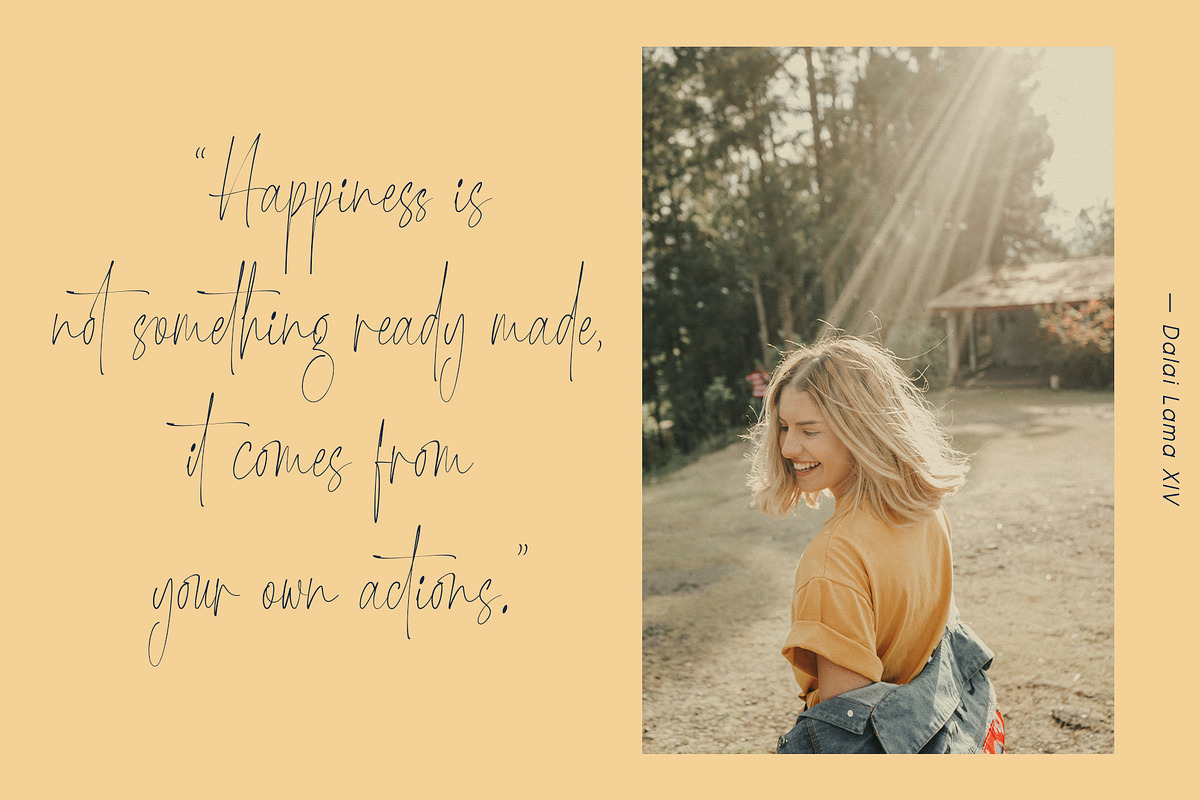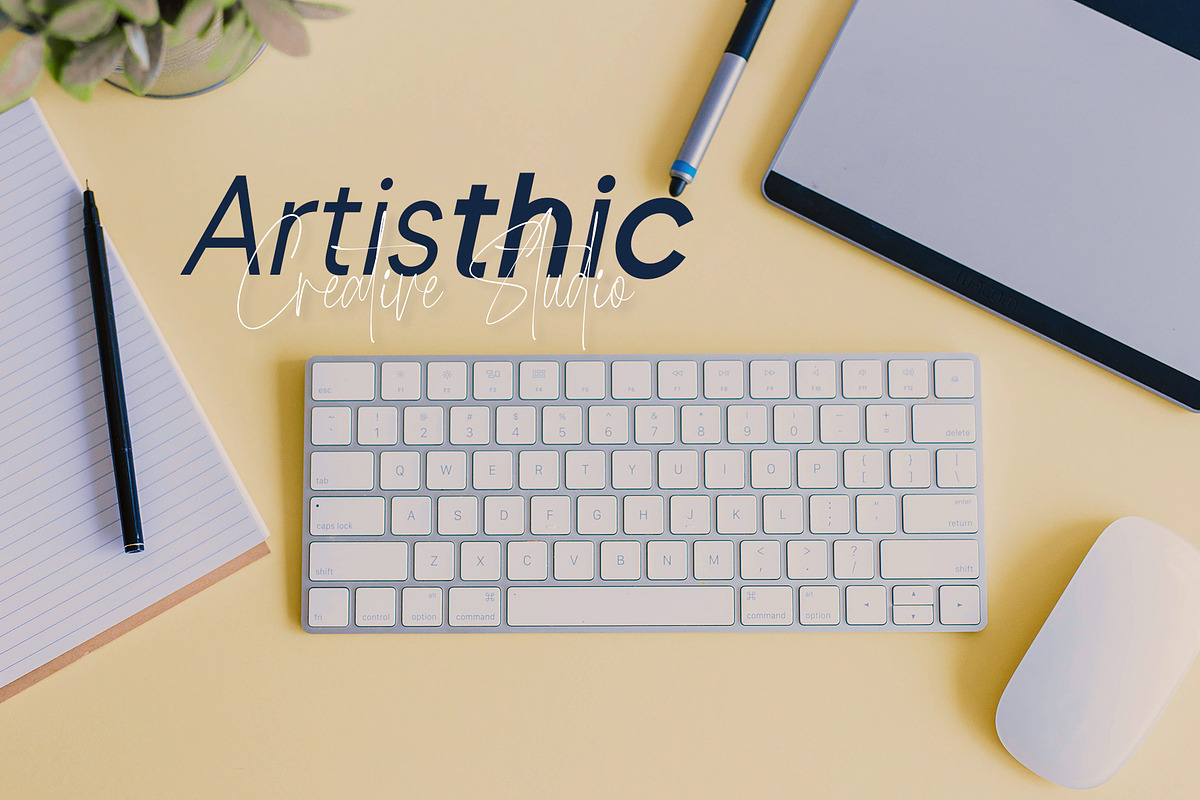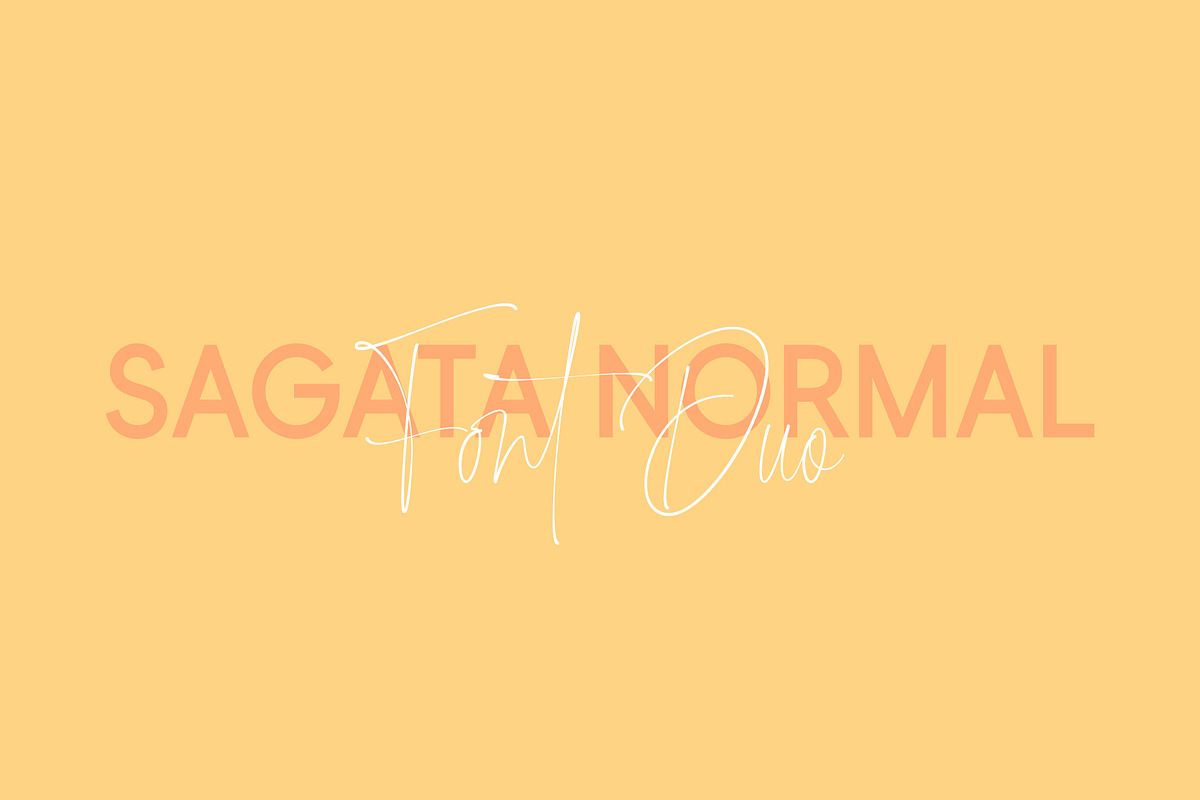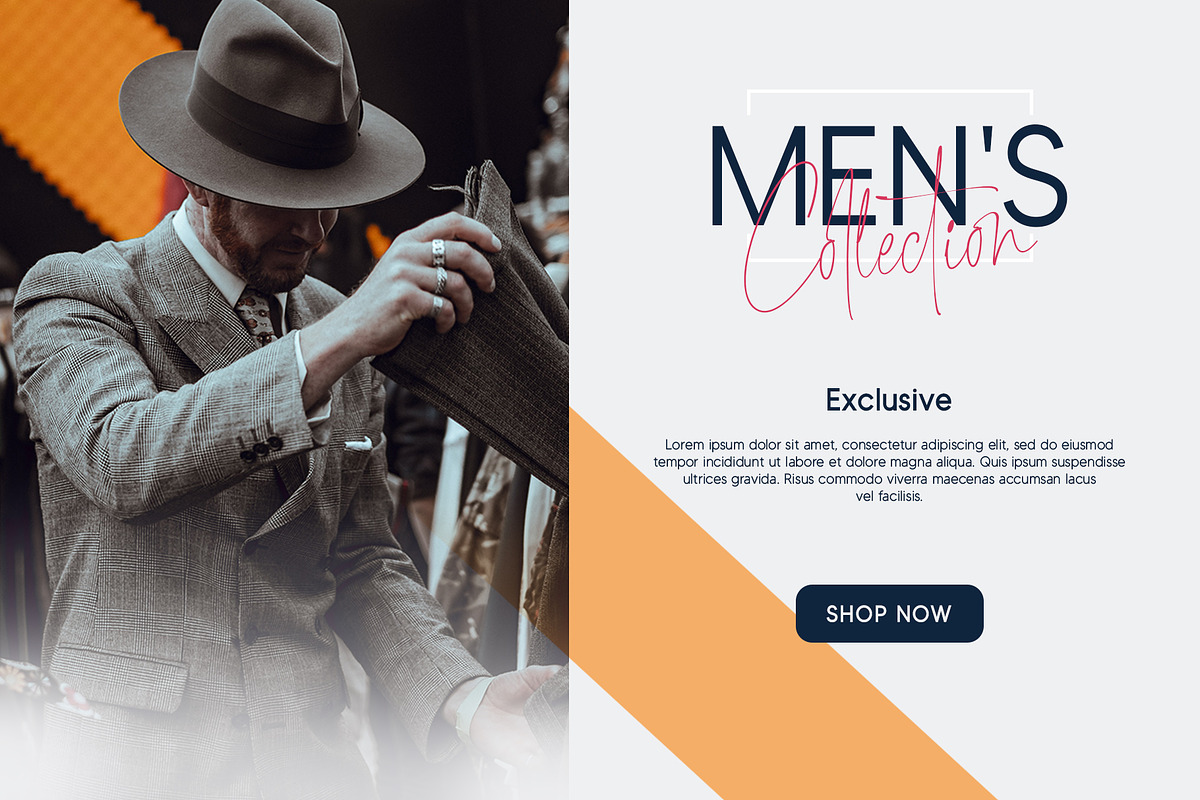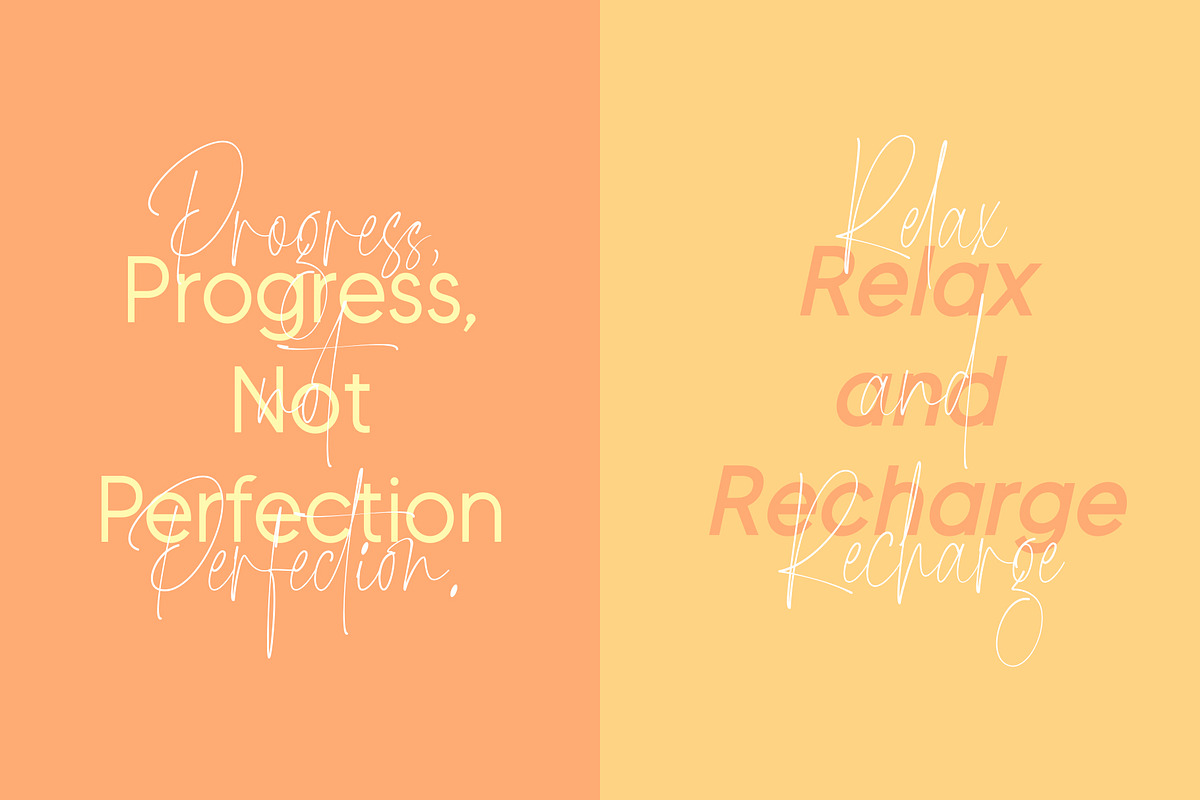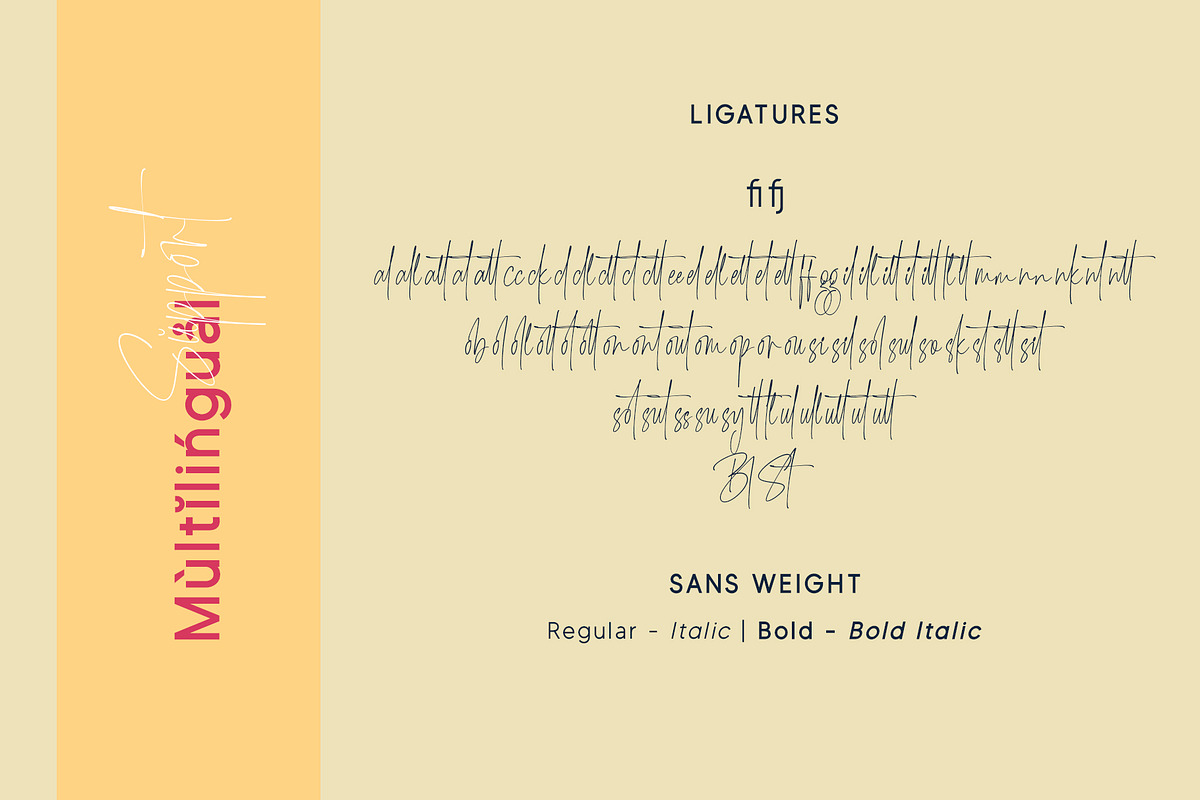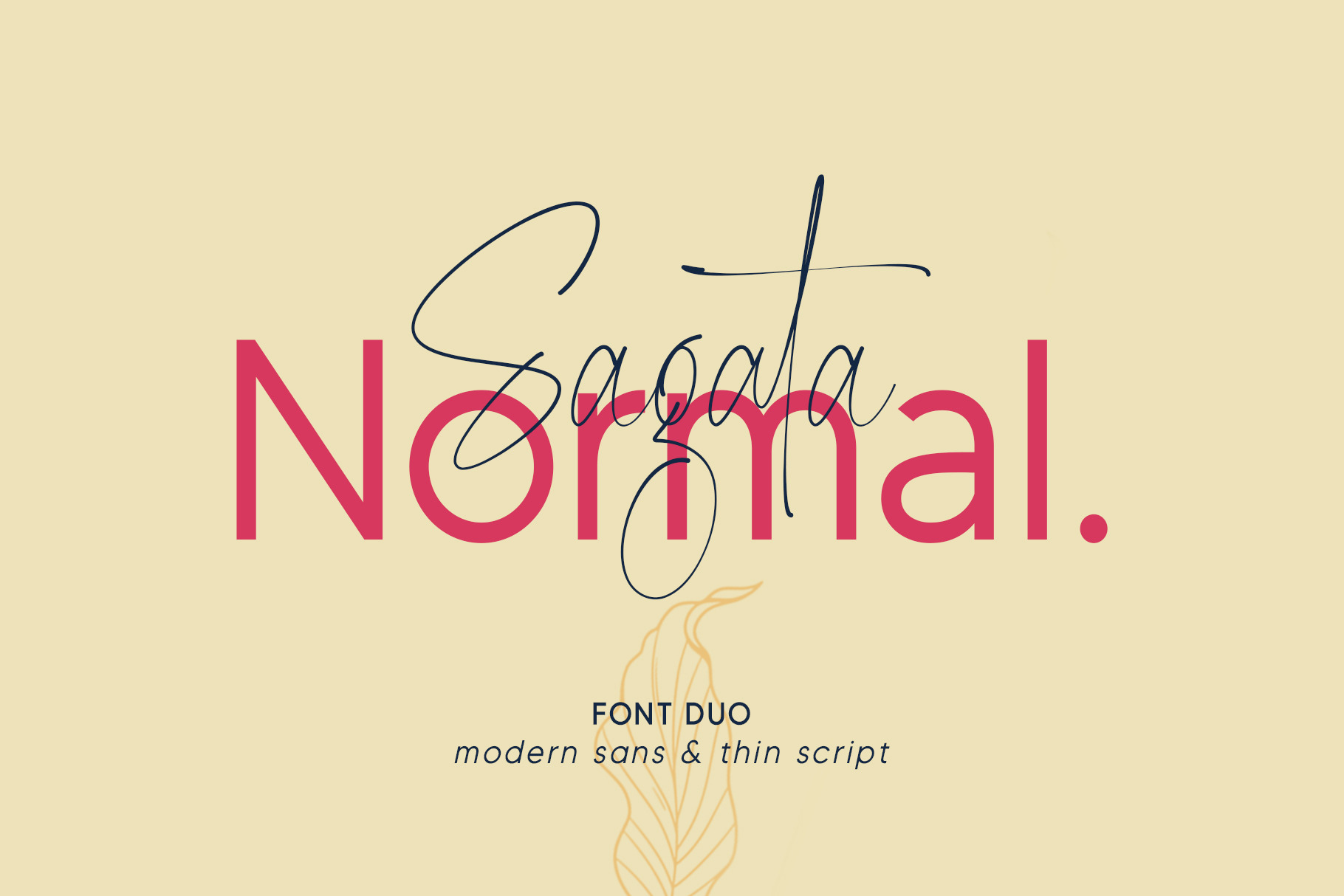
Sagata Normal | Font Duo
Sagata Normal is a font duo combining a clean, modern sans serif with an elegant thin script. Designed for versatility, this pair works well for branding, logos, social media graphics, and editorial designs. The sans serif provides clarity and structure, while the script adds a subtle personal touch, making your typography more dynamic and engaging.
- Script + Sans Serif